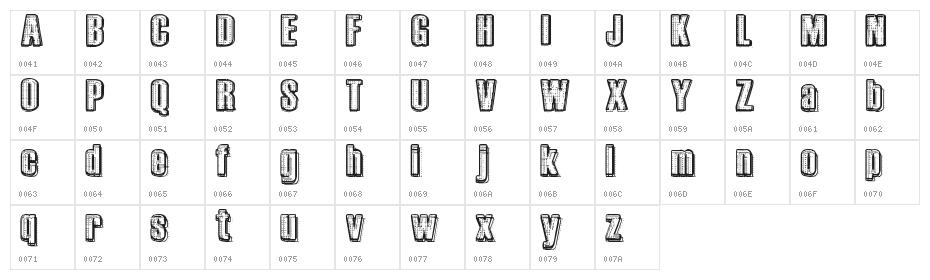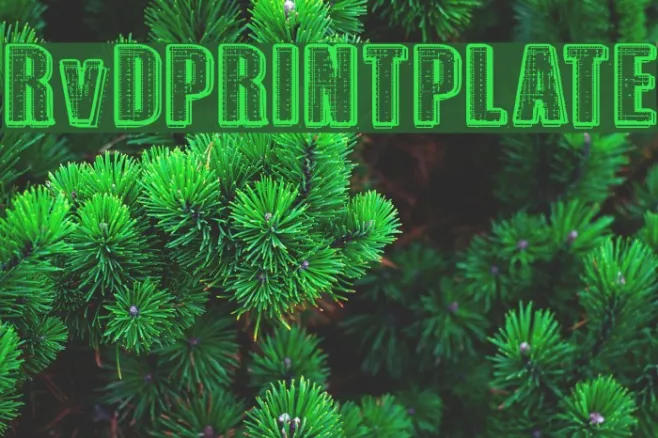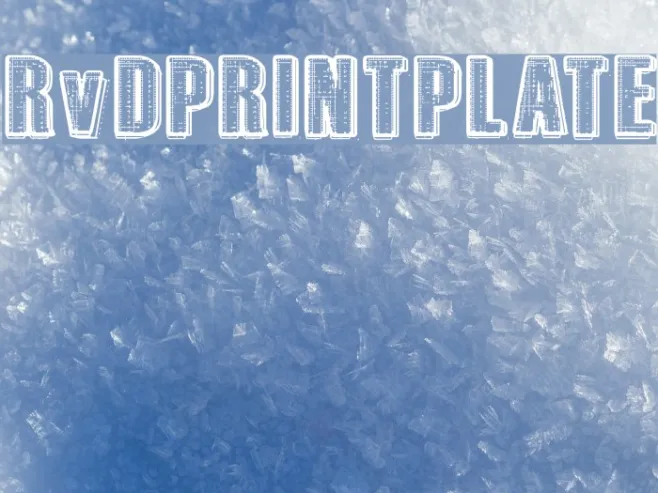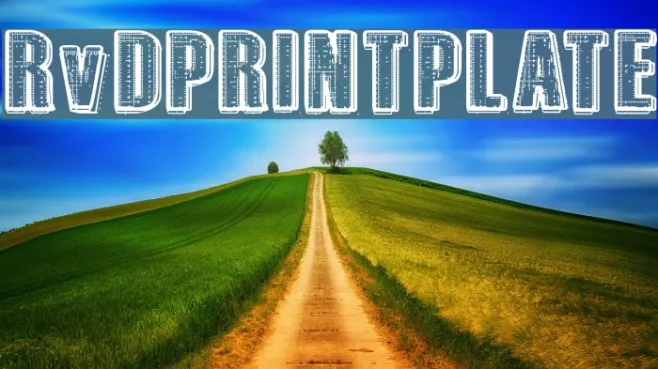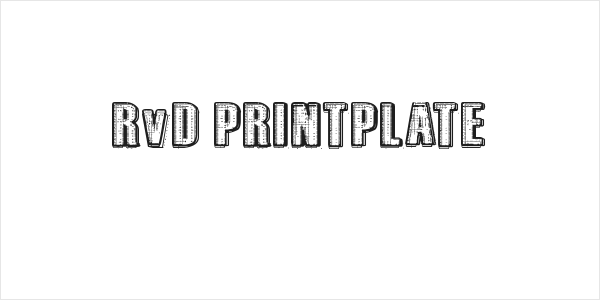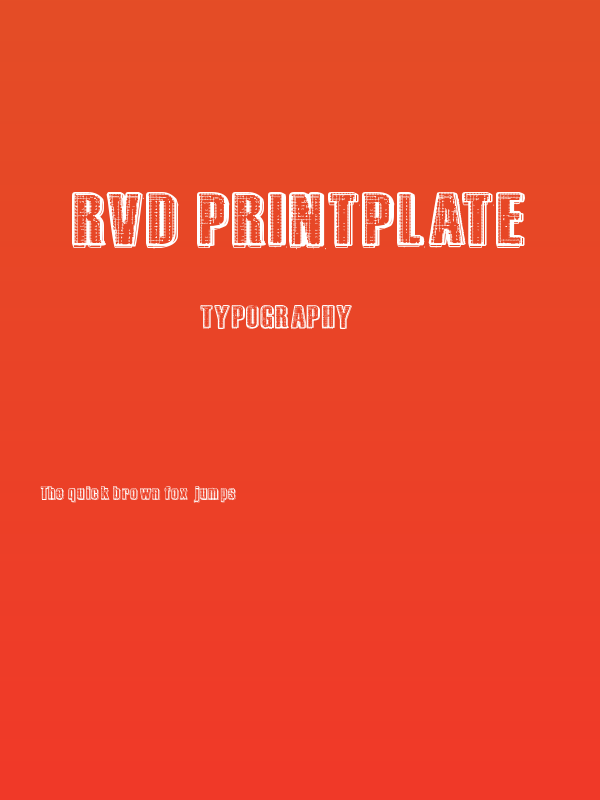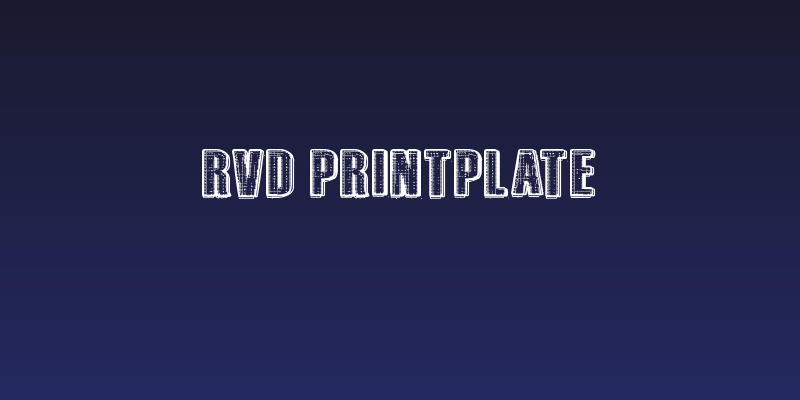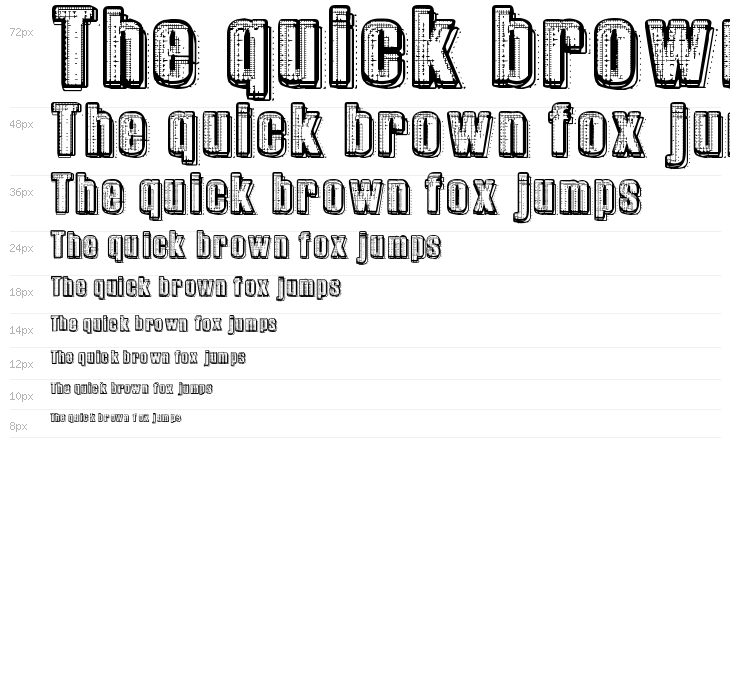
RvD_PRINTPLATE Font
RvD_PRINTPLATE Description
This font features a bold, textured design reminiscent of vintage print styles. Each character is outlined with a thick border, giving it a distinct, eye-catching appearance. The interior of the letters is filled with a distressed pattern, adding a rugged, industrial feel. The uppercase and lowercase letters maintain a consistent style, with the uppercase being slightly more pronounced. The numerals and special characters are designed to match the overall aesthetic, ensuring a cohesive look across all text elements. This font is ideal for projects that require a strong, impactful visual presence.
| Proposed Projects | Ideal for posters, branding, packaging, and any design requiring a vintage or industrial aesthetic. |